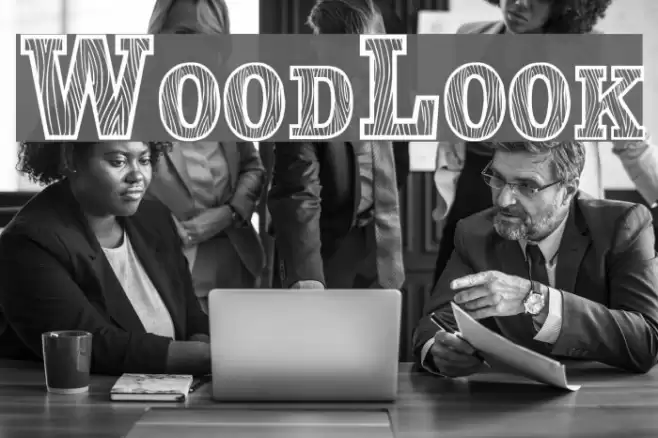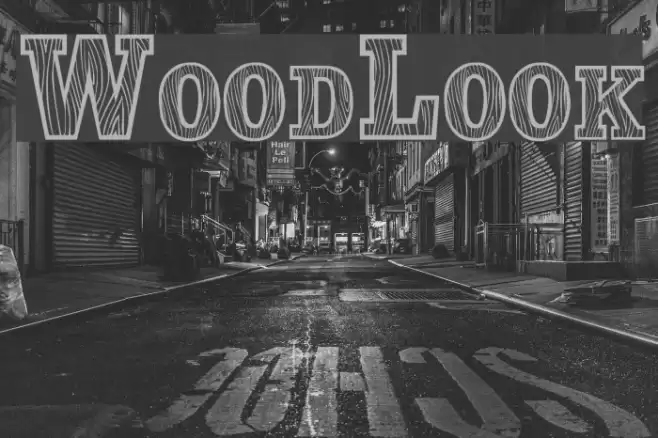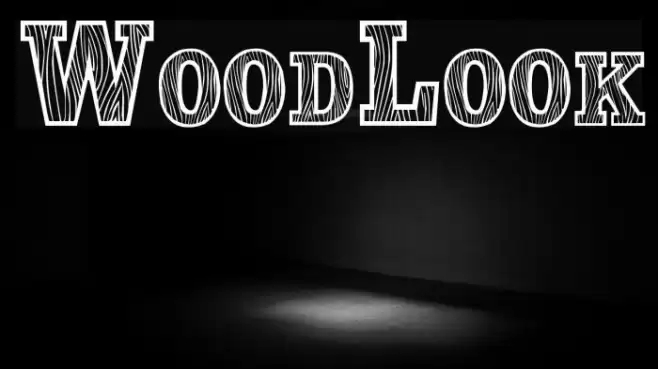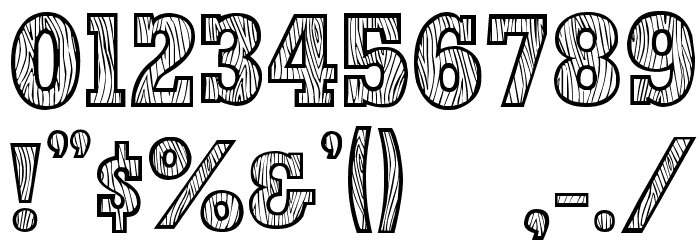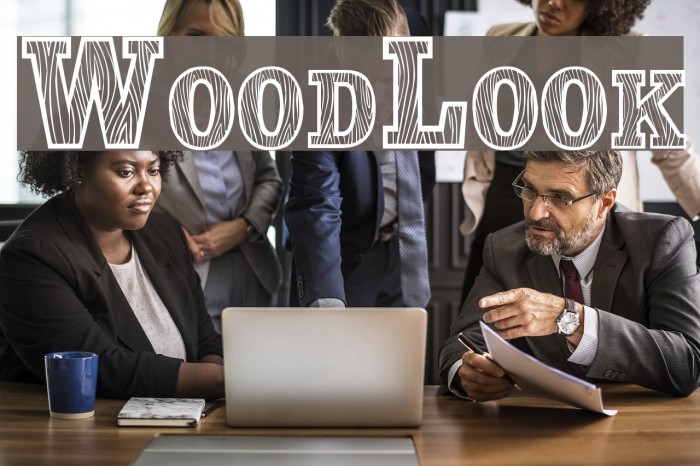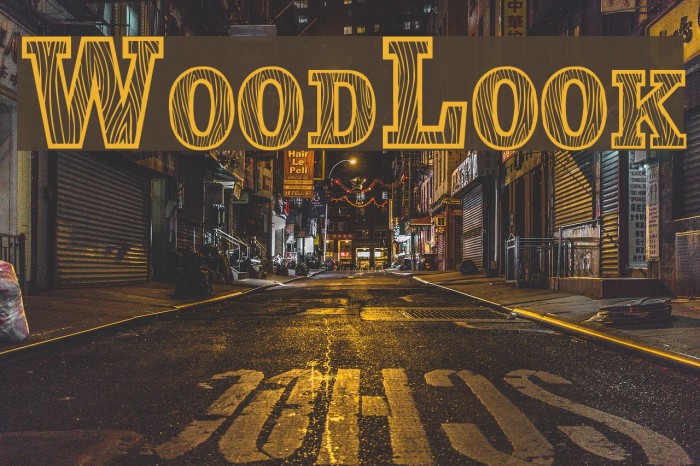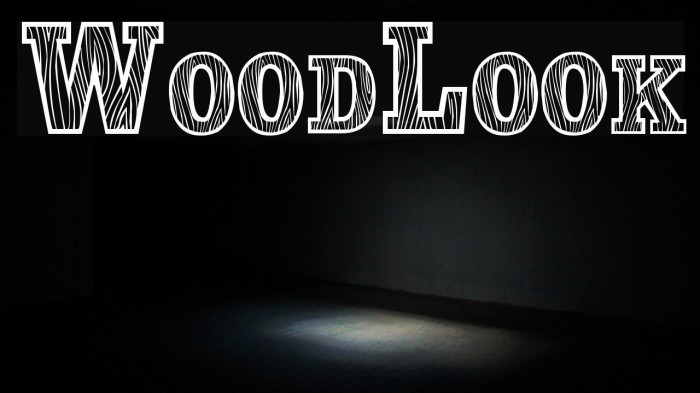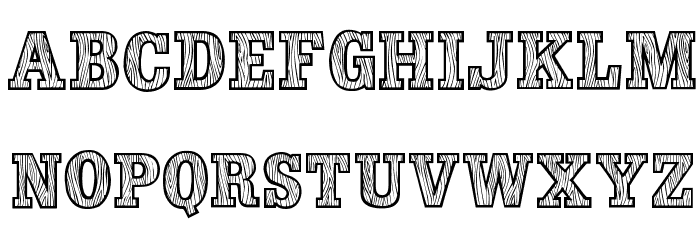
WoodLook Font
WoodLook Description
This font features a distinctive woodgrain texture within each character, giving it a rustic and natural appearance. The bold, blocky letters are reminiscent of traditional woodcut prints, with a strong presence and a decorative flair. Each character is filled with intricate line patterns that mimic the look of wood, adding depth and visual interest. The uppercase and lowercase letters maintain a consistent style, ensuring readability while still offering a unique aesthetic. The numerals and special characters are equally detailed, making this font suitable for a variety of creative applications.
A bold, woodgrain-textured font with a rustic, decorative style from Uncategorized fonts.
- Proposed Projects: Ideal for projects that require a natural or rustic theme, such as outdoor event posters, eco-friendly product packaging, or artisanal branding.